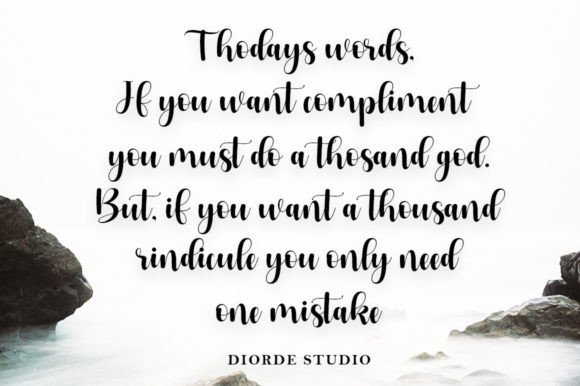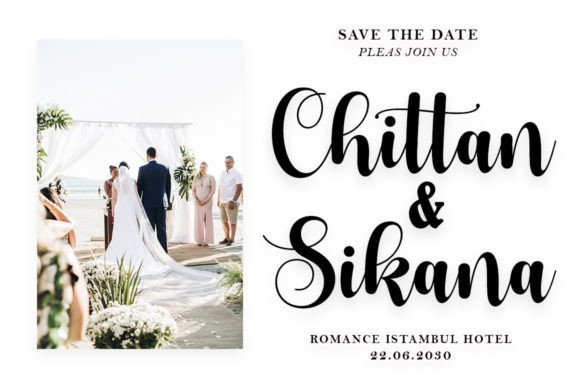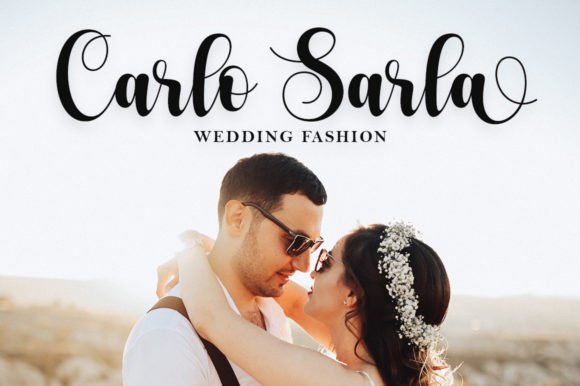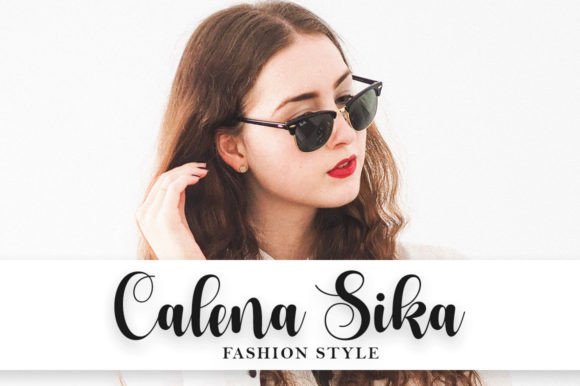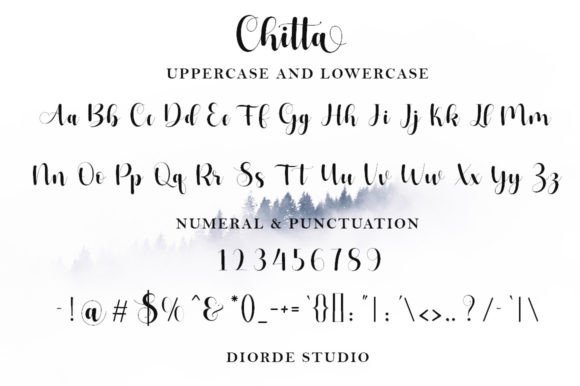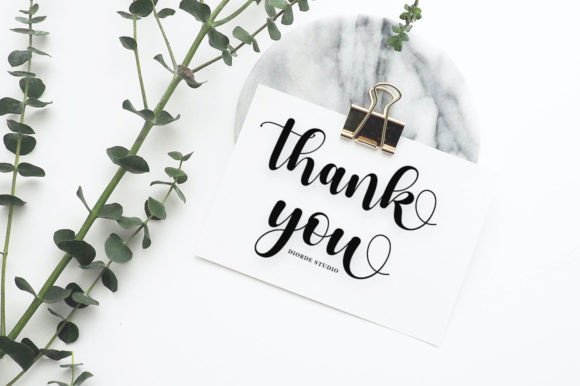
Introduction to Chitta Font
Chitta is a delicate, elegant, and flowing handwritten font perfect for your favorite projects.
Fall in love with its incredibly distinct and timeless style, and use it to create spectacular designs .
Chitta Font offers exceptional quality and versatility, making it a valuable addition to your design toolkit. Whether you’re creating for personal projects or commercial use, Chitta Font delivers professional results.